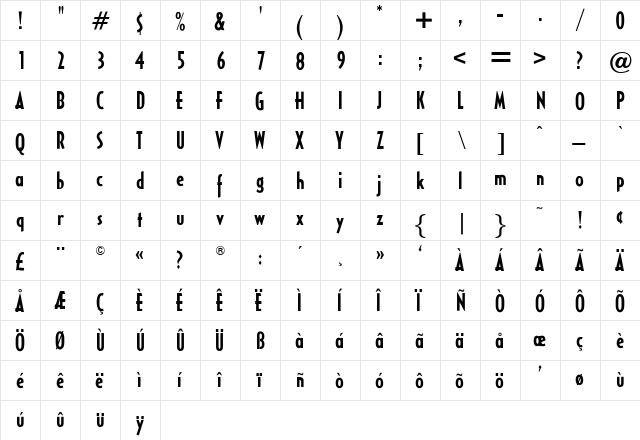
OPTICivet Medium
Design Context for OPTICivet Typeface
OPTICivet takes a measured approach to typography — its balanced proportions and neutral character make it a reliable workhorse for both digital and print work.